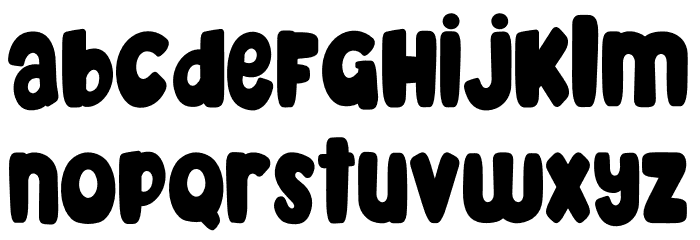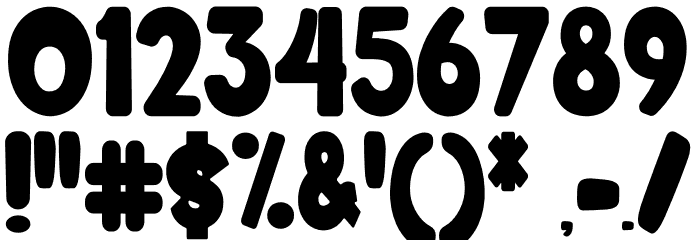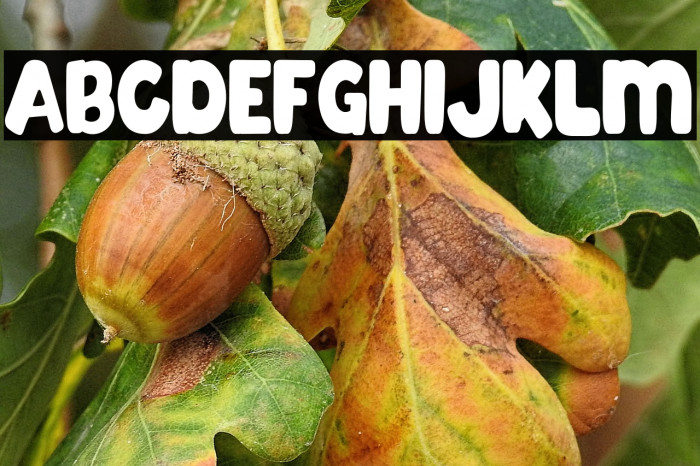
Mahoney Higher Font
This font features a bold and playful style with rounded edges and a chunky appearance. The characters are uniformly thick, giving it a strong presence. The uppercase and lowercase letters maintain a consistent width, creating a cohesive look. The numbers and special characters follow the same design principles, ensuring uniformity across all elements. This font's playful and bold nature makes it ideal for projects that require a fun and engaging visual impact.
A bold, playful font with rounded edges and a chunky appearance.
- Font: Mahoney Higher
- Proposed Projects: Ideal for children's books, playful branding, posters, and event invitations.
- Overall Style: Playful